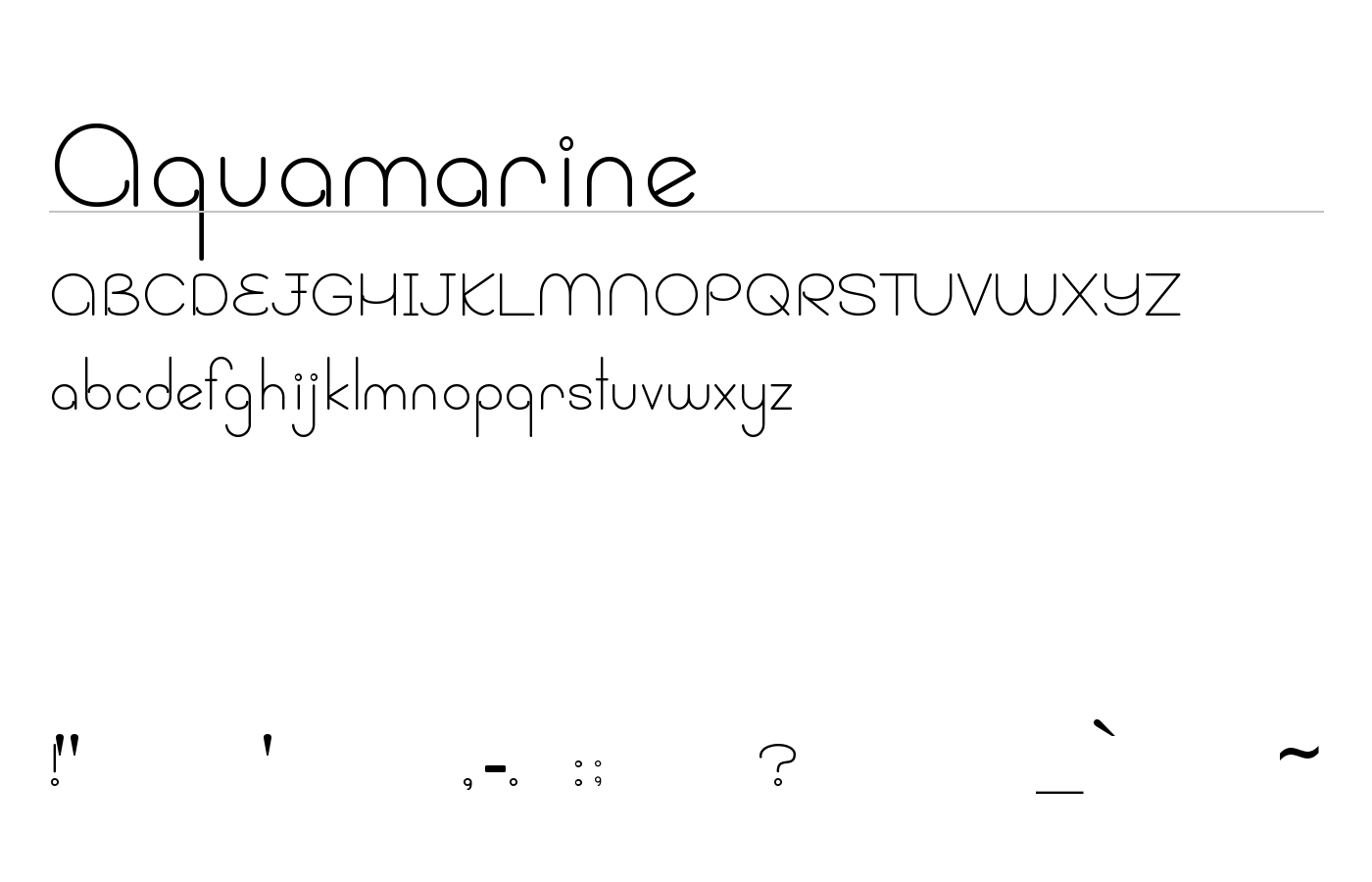
Aquamarine is a delicate, sans serif font characterized by its ultra-thin strokes and geometric, rounded letterforms that create a modern and airy feel. Its light weight and open, minimalistic design make it perfect for elegant branding, stylish logos, and contemporary editorial layouts where a clean, sophisticated touch is desired. This font’s unique and playful shapes also add a subtle personality that suits fashion, lifestyle, and creative projects aiming for a sleek yet approachable look.
Aquamarine Font